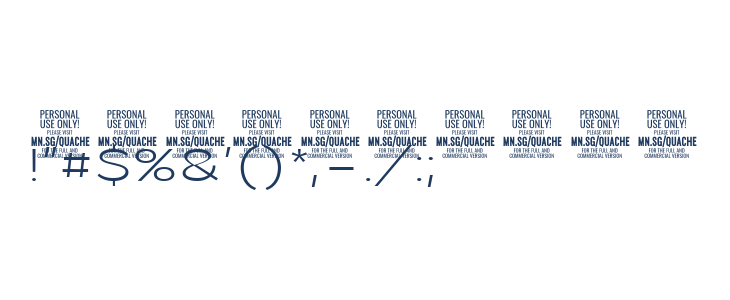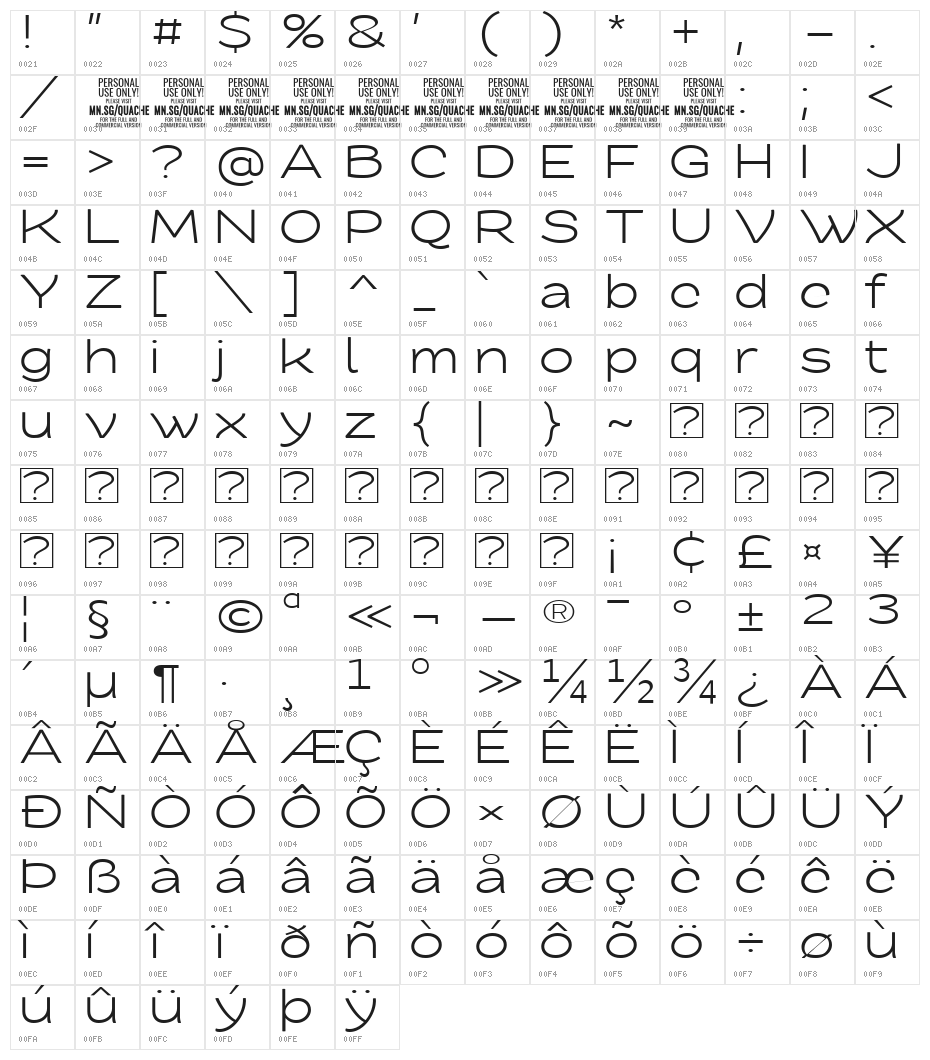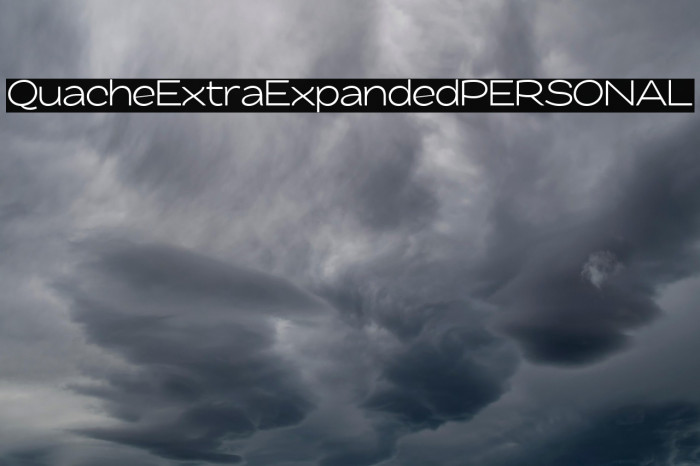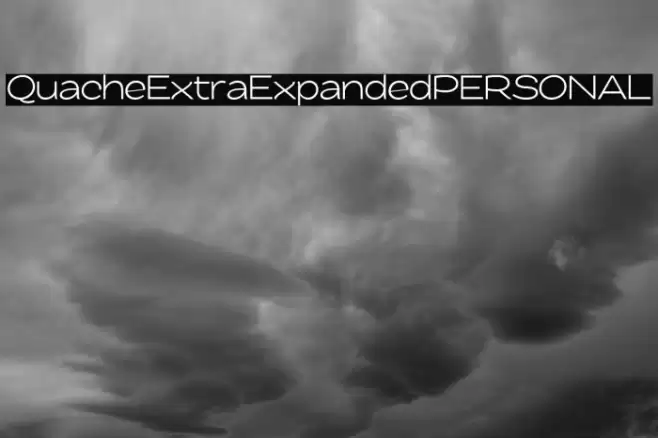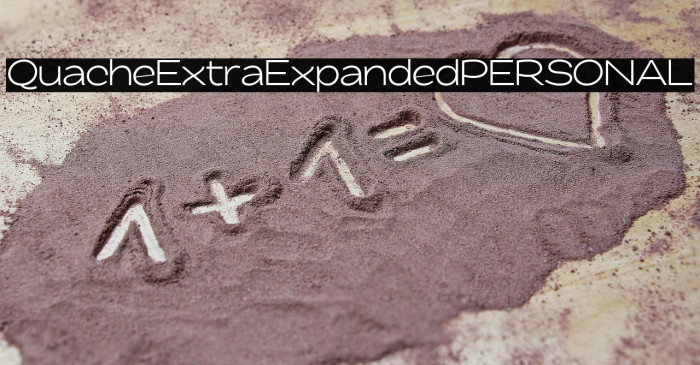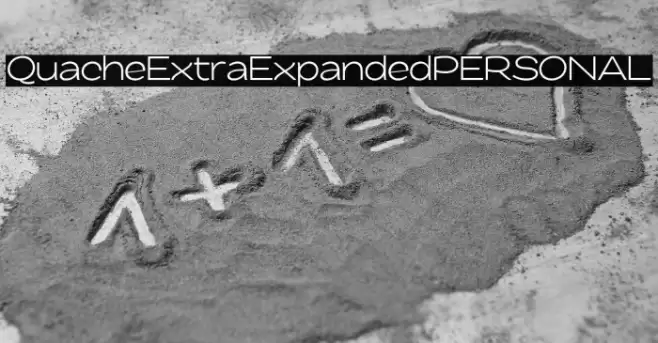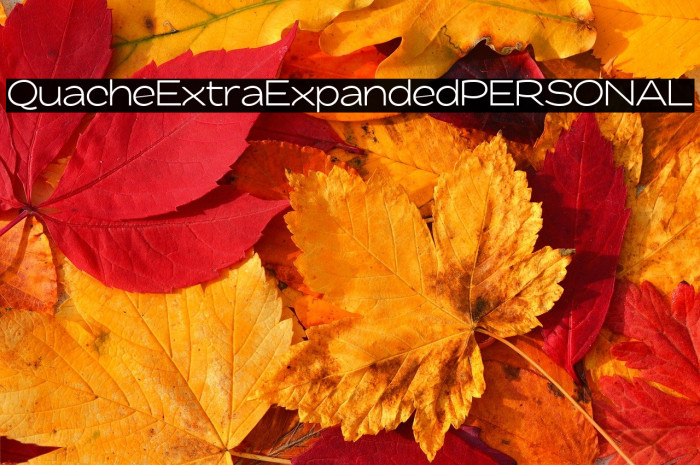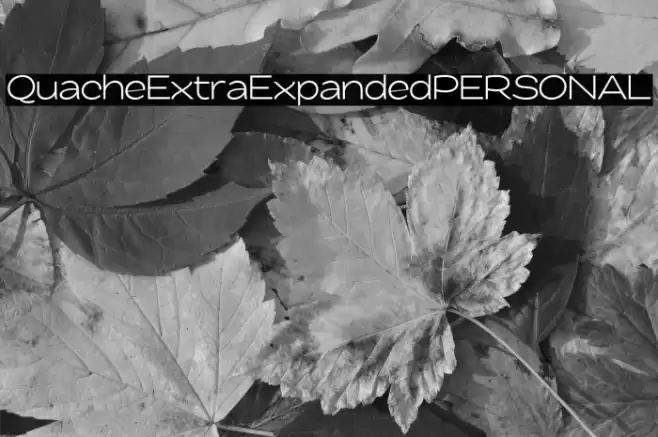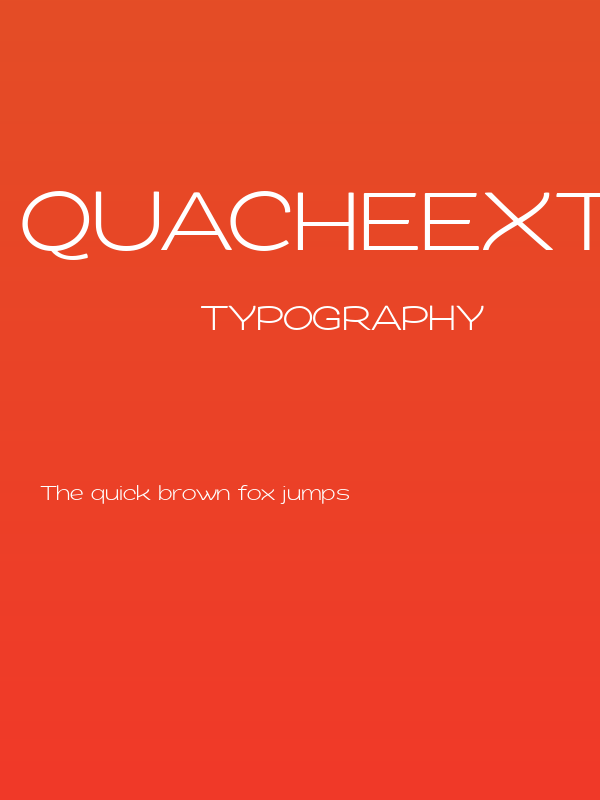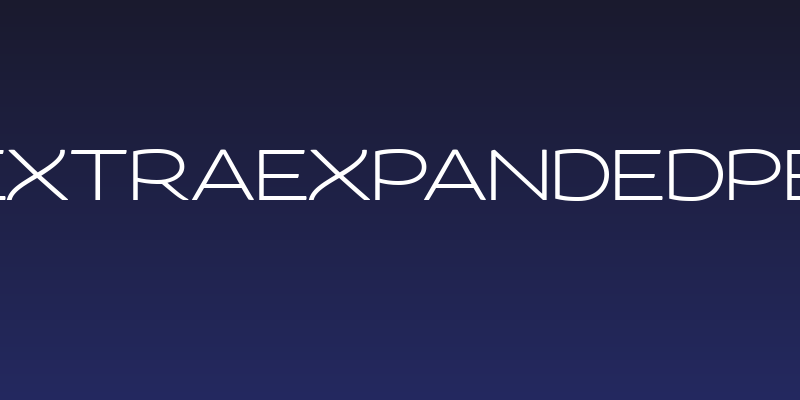
QuacheExtraExpandedPERSONAL Font
QuacheExtraExpandedPERSONAL Description
This font features a sleek and modern design with clean lines and a geometric structure. The uppercase and lowercase letters are well-proportioned, offering a harmonious balance between form and function. The characters exhibit a consistent stroke width, contributing to a uniform appearance. The special characters and numerals maintain the same stylistic approach, ensuring cohesion across all elements. Its expanded width gives it a distinctive presence, making it suitable for attention-grabbing designs.
| Proposed Projects | Ideal for branding, advertising, and editorial design where a modern and clean aesthetic is desired. |